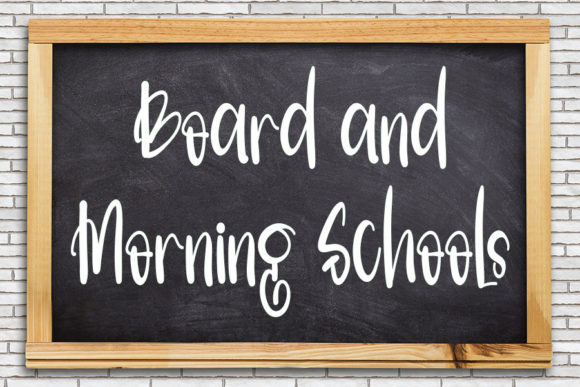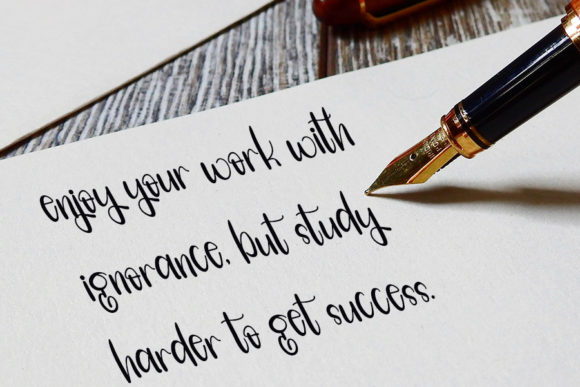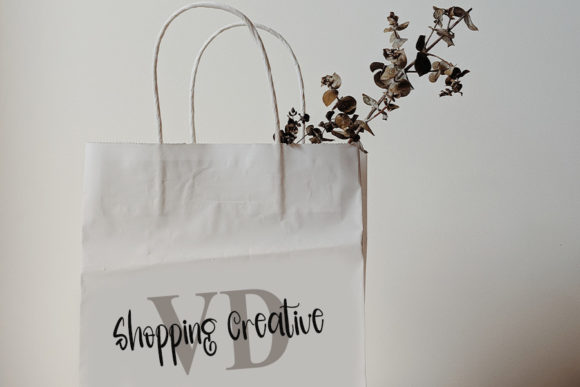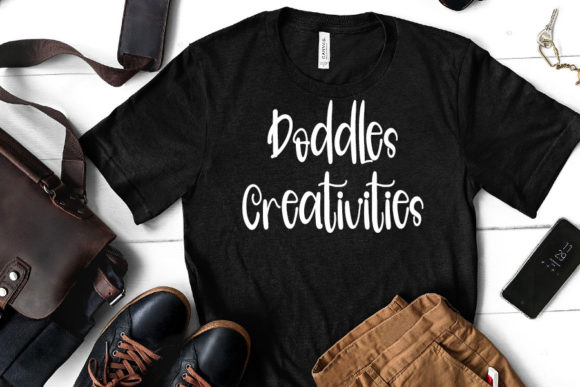
Momentum Font
About Momentum Font
Momentum is a flowing and ageless handwritten font. It is the best choice for creating eye catching logos, branding and quotes. Every letter has a unique and beautiful touch, which will make your design come alive!